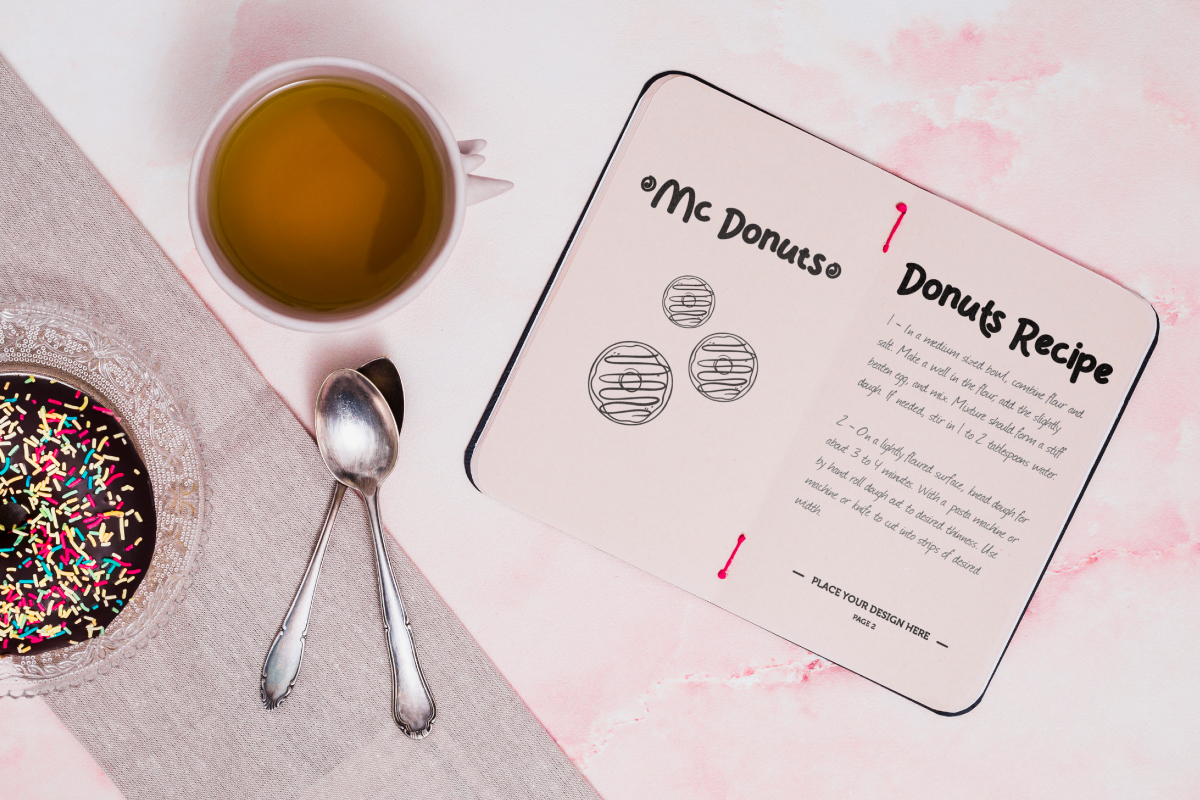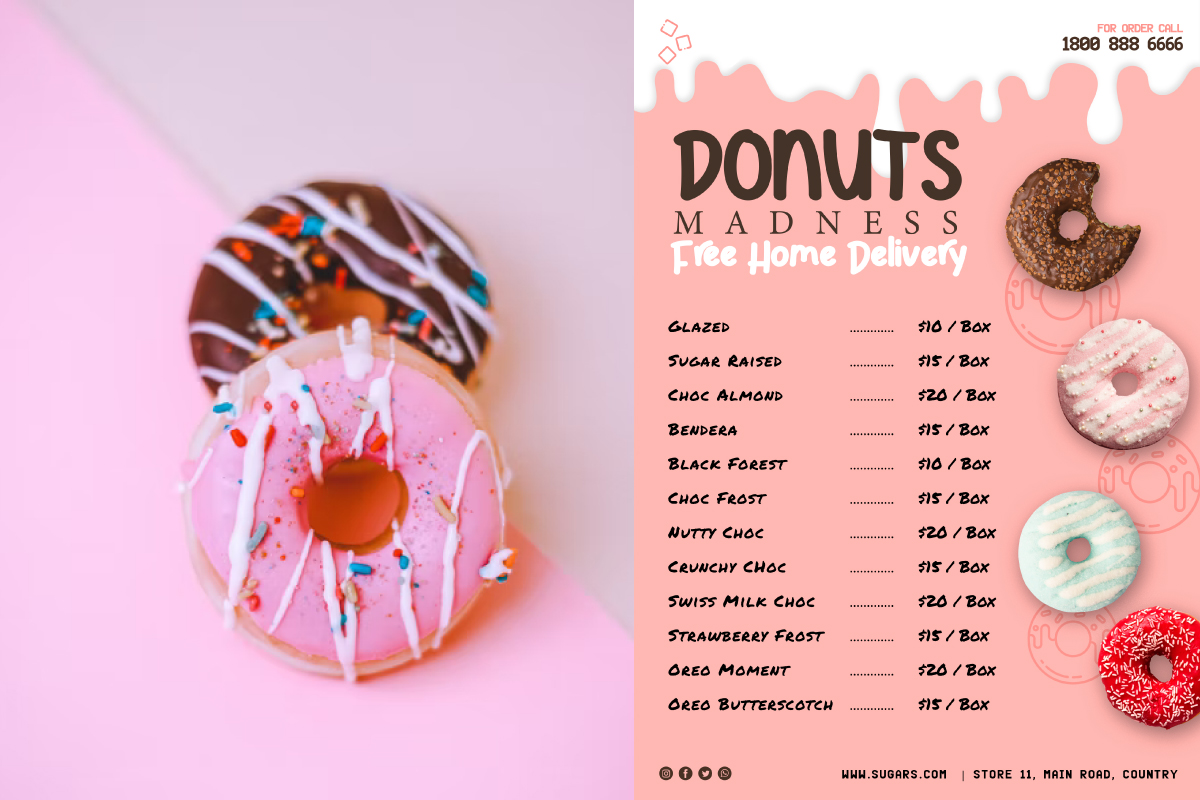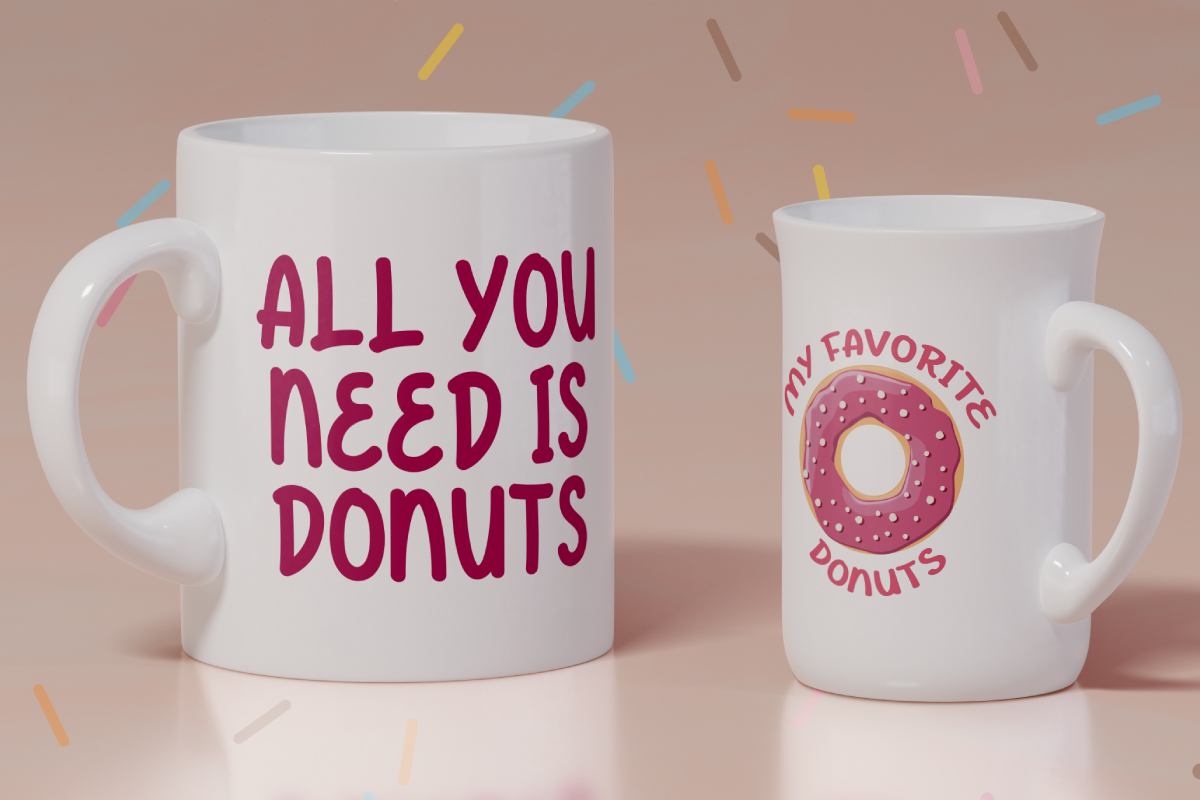
Mc Donuts Font
Mc Donuts Display Font
This is a sweeties playful cartoon display font with cafe foodies donut theme. The font is inspired from one of the world’s leading fast food restaurants. This font has two style font, Regular and Bold that still easily to read. It will be amazing for any projects including: billboard, blog headers, custom mug, food recipe, label, menu sheet, product packaging, quote, title, and many more.
Mc Donuts Font includes full set of Uppercase and Lowercase Basic Characters, Numerals, Punctuation, Ligatures to make it flawless characters to perfectly make awesome look that add more cute and fun fonts to your extraordinary project. It’s perfect for any industry: bakery, cake, candy, cooking class, fast food, pastry, restaurant, valentine’s day, and many more.